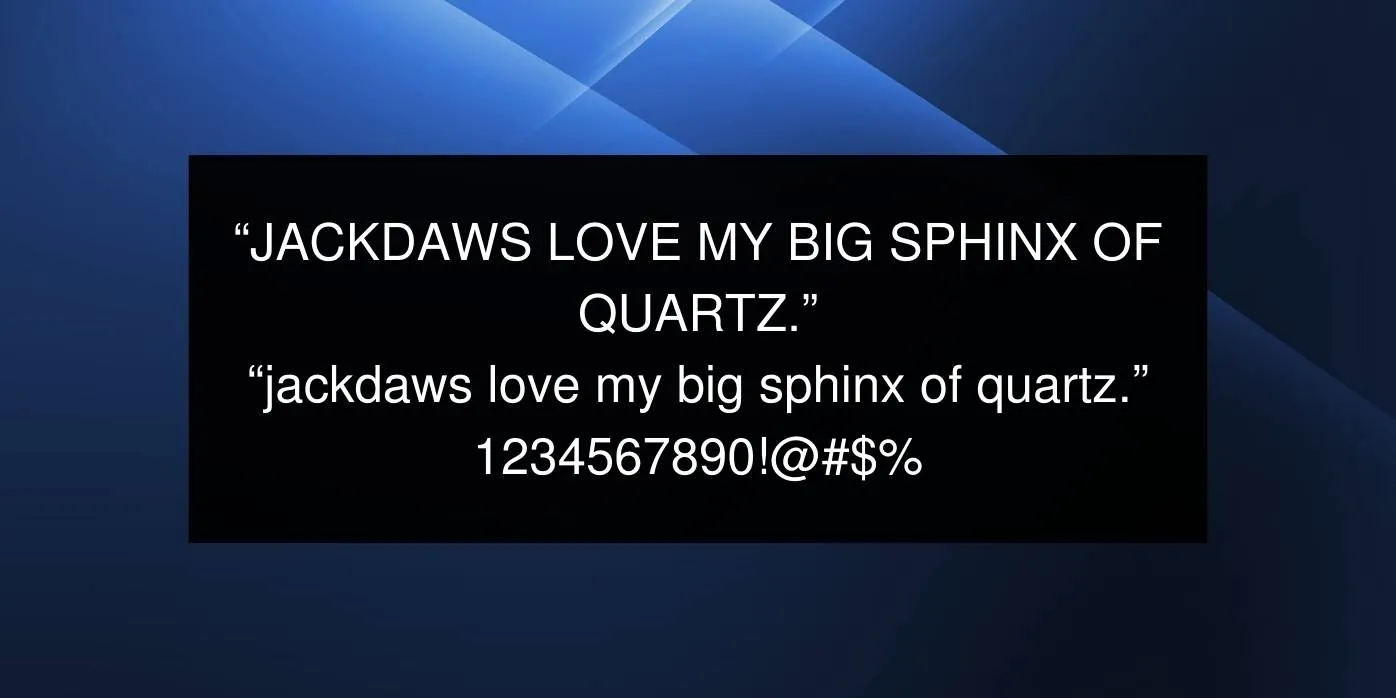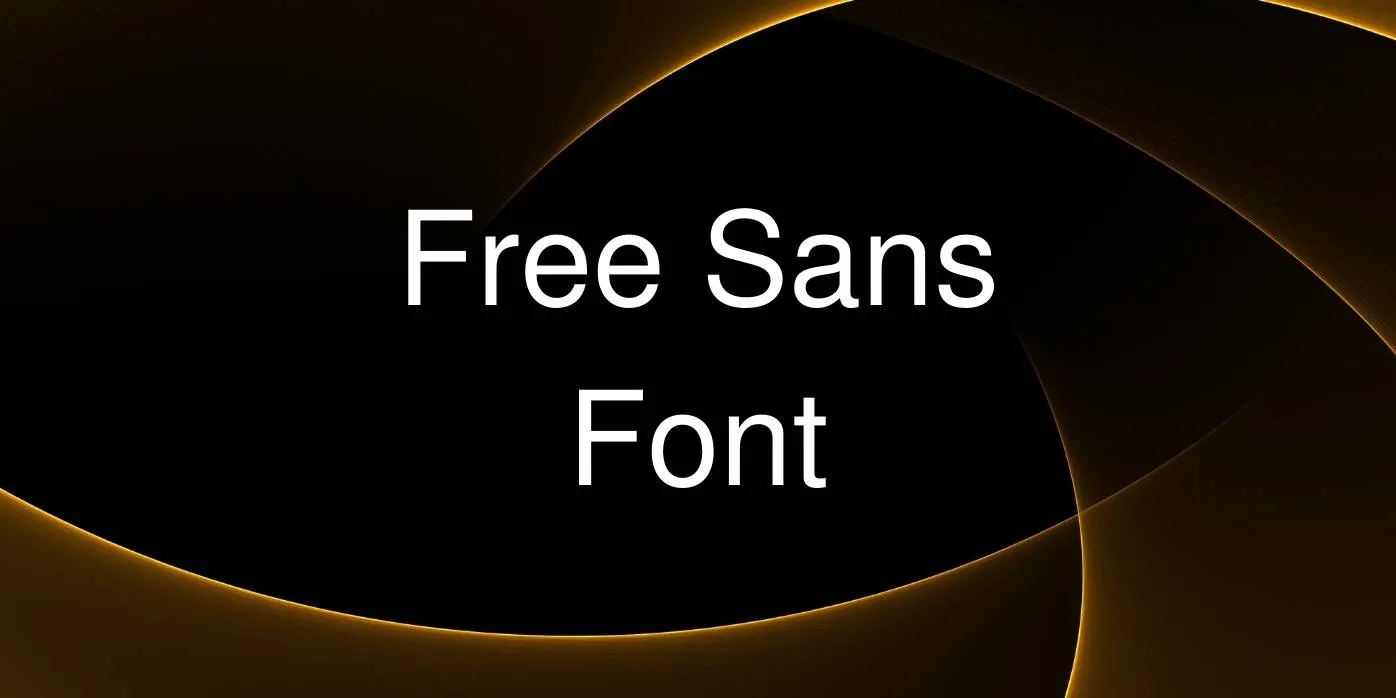
Free Sans Font
Free Sans Font is the culmination text style for all your fun plans. The textual style subfamily is Medium. The textual style was planned by GNU and is free for individual use. The textual style fashion may change depending on the letters chosen.
A few textual styles don’t acknowledge extraordinary characters or were made for a one-off activity. Through the image underneath, you’ll see the concept of each letter. Too, you’ll be able to check the typography of all the letters underneath or take the test online sometime recently downloading the textual style. Be mindful that the Free Sans textual style is free for individual information and utilize as it were.
This font is very close to the pluto sans font. Be that as it may, you would like to contact the creator for commercial utilization or any support. Usage To evaluate the typeface, in this section there is a preview in which we select 31 special characters or accents, 26 letters of the alphabet in upper and lower case, and the numbering from 0 to 10. The letters will be the same after being installed in your operating system, either for viewing or for printing.